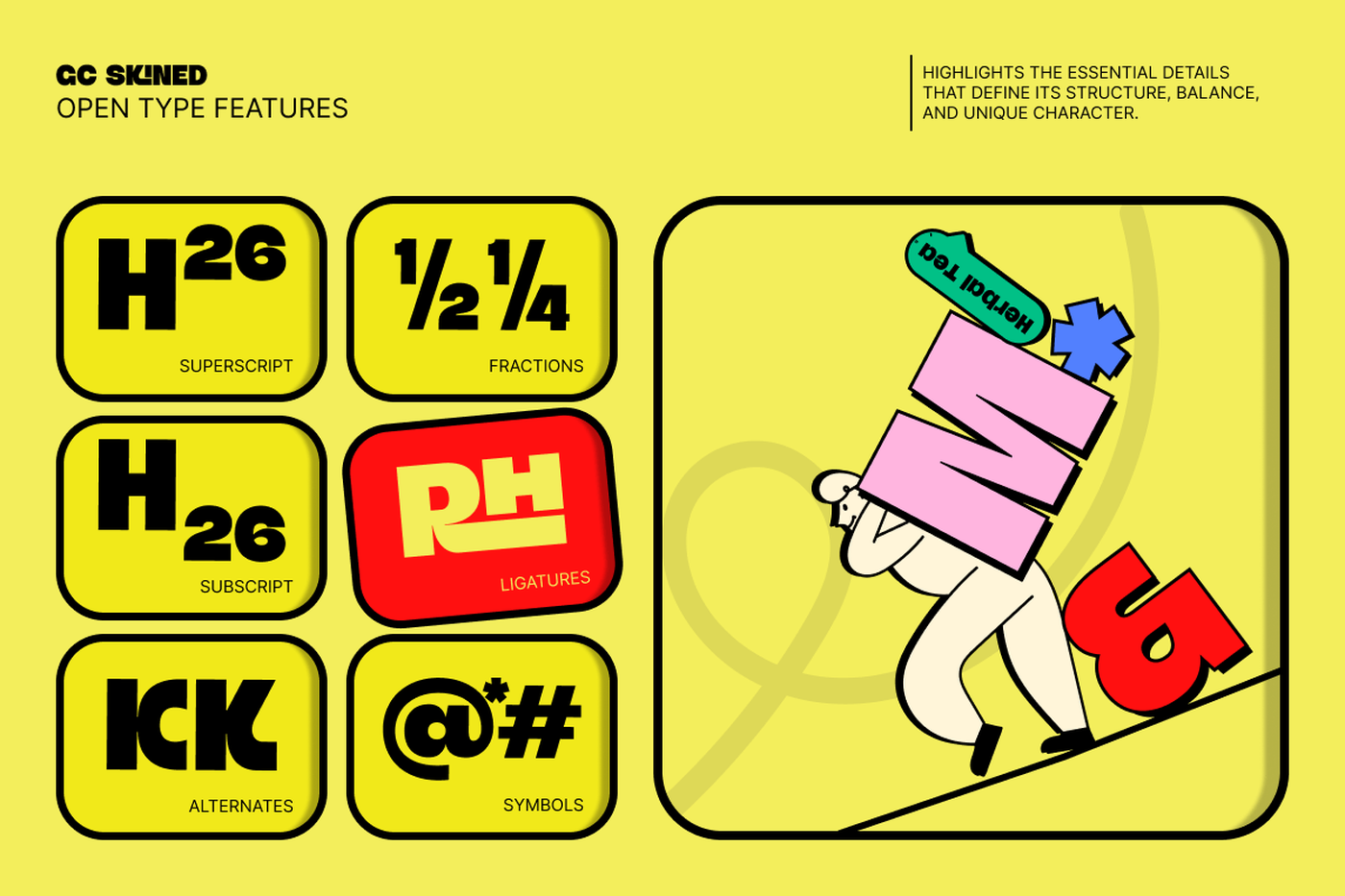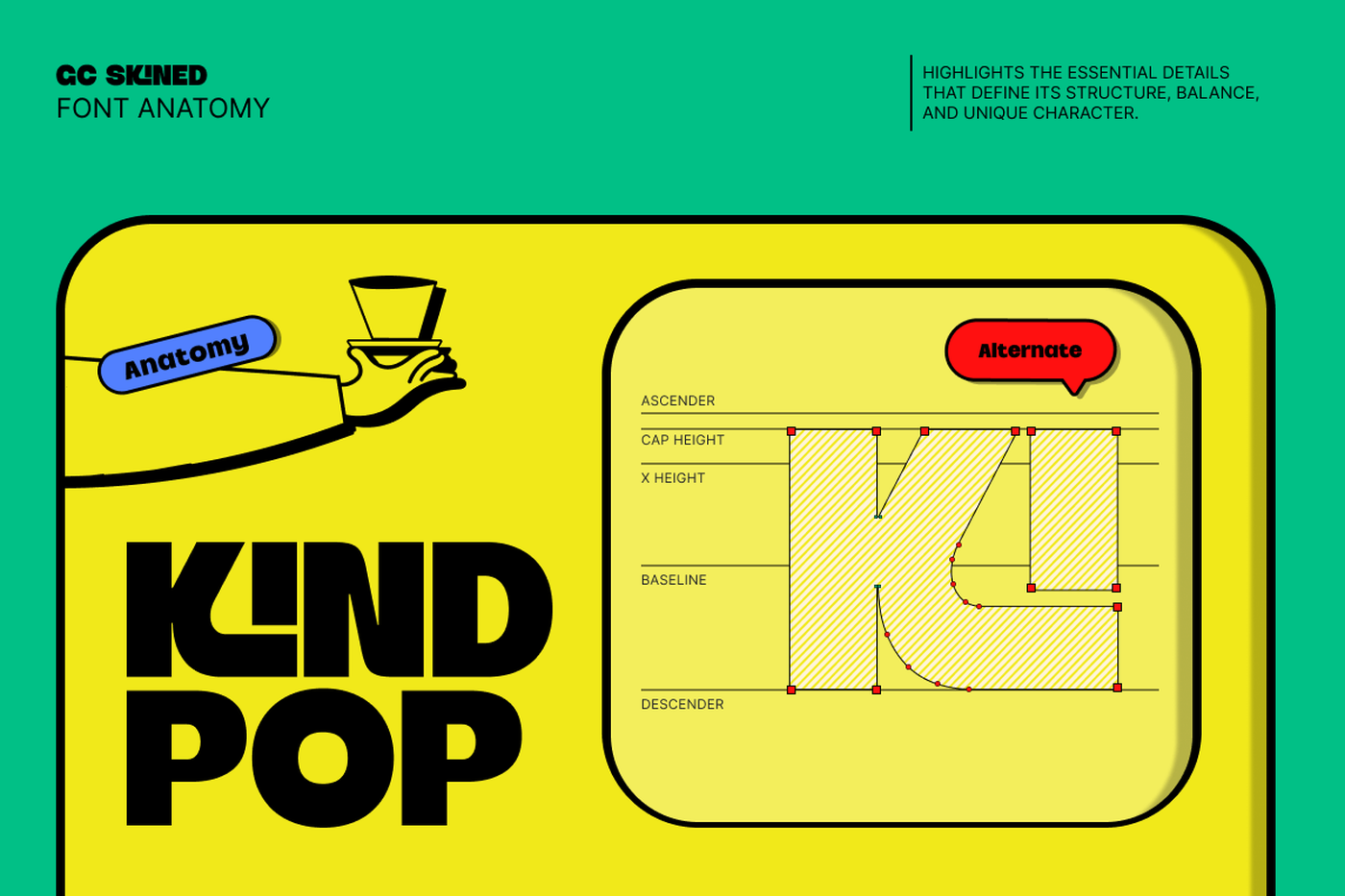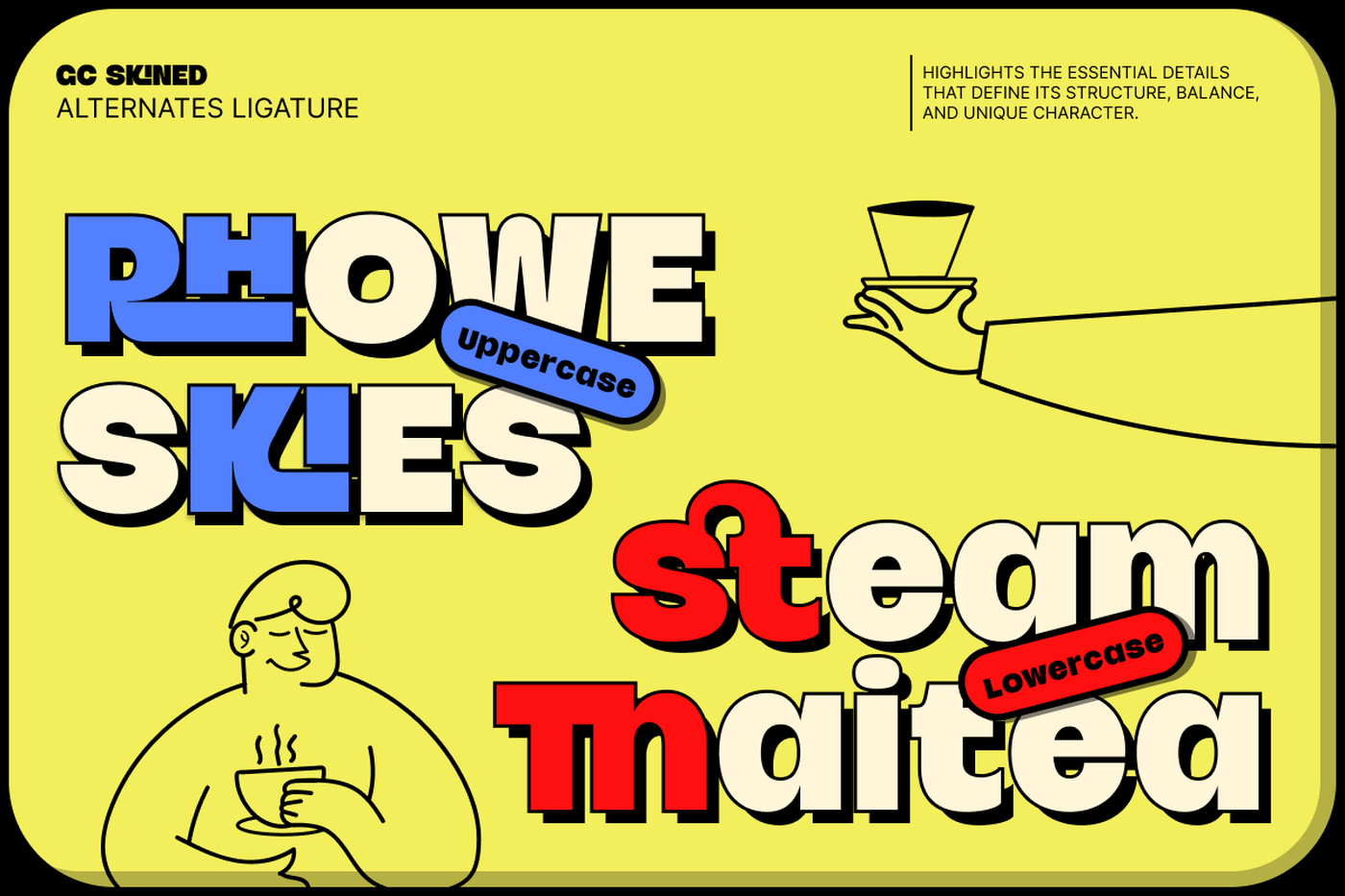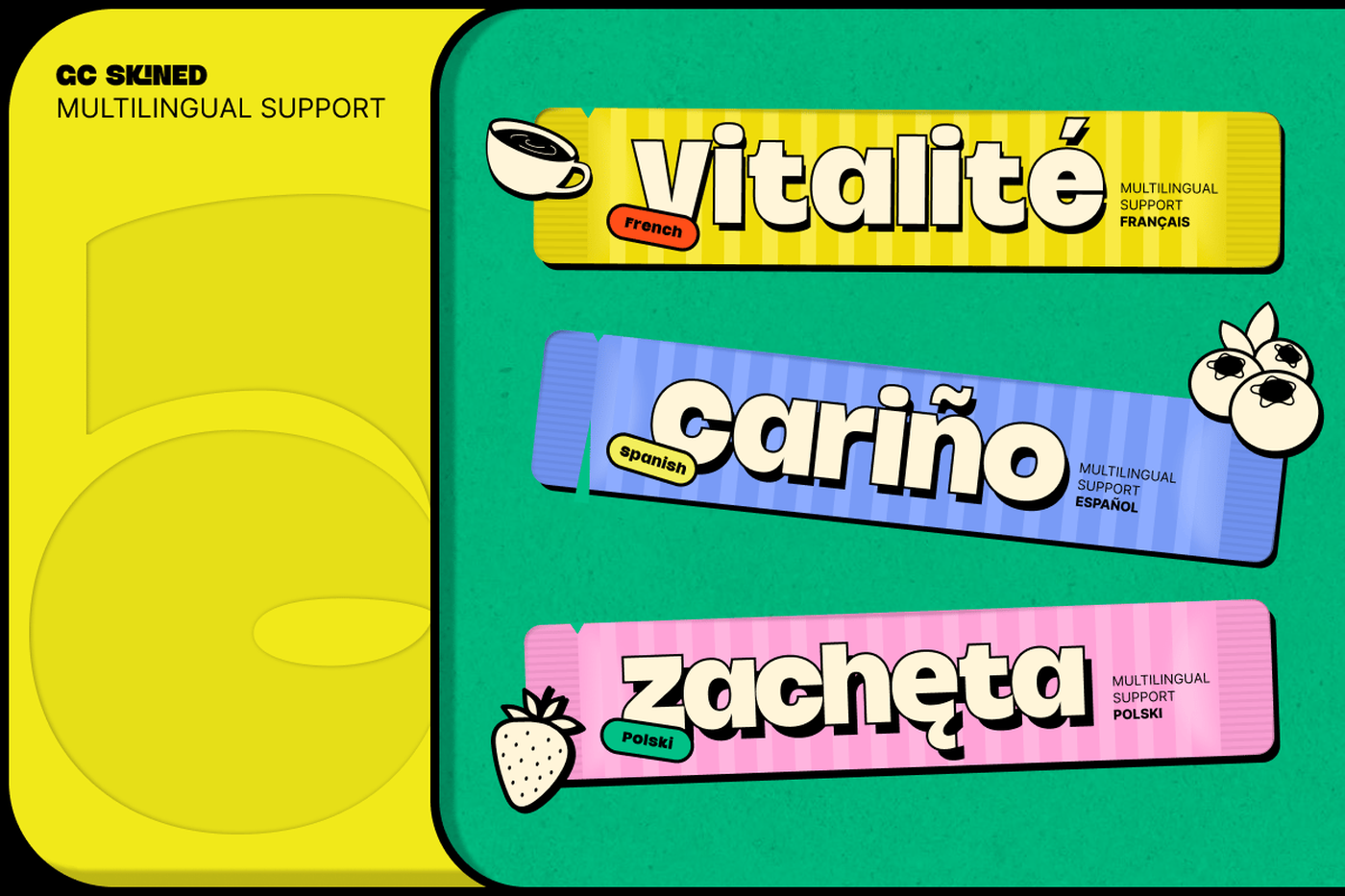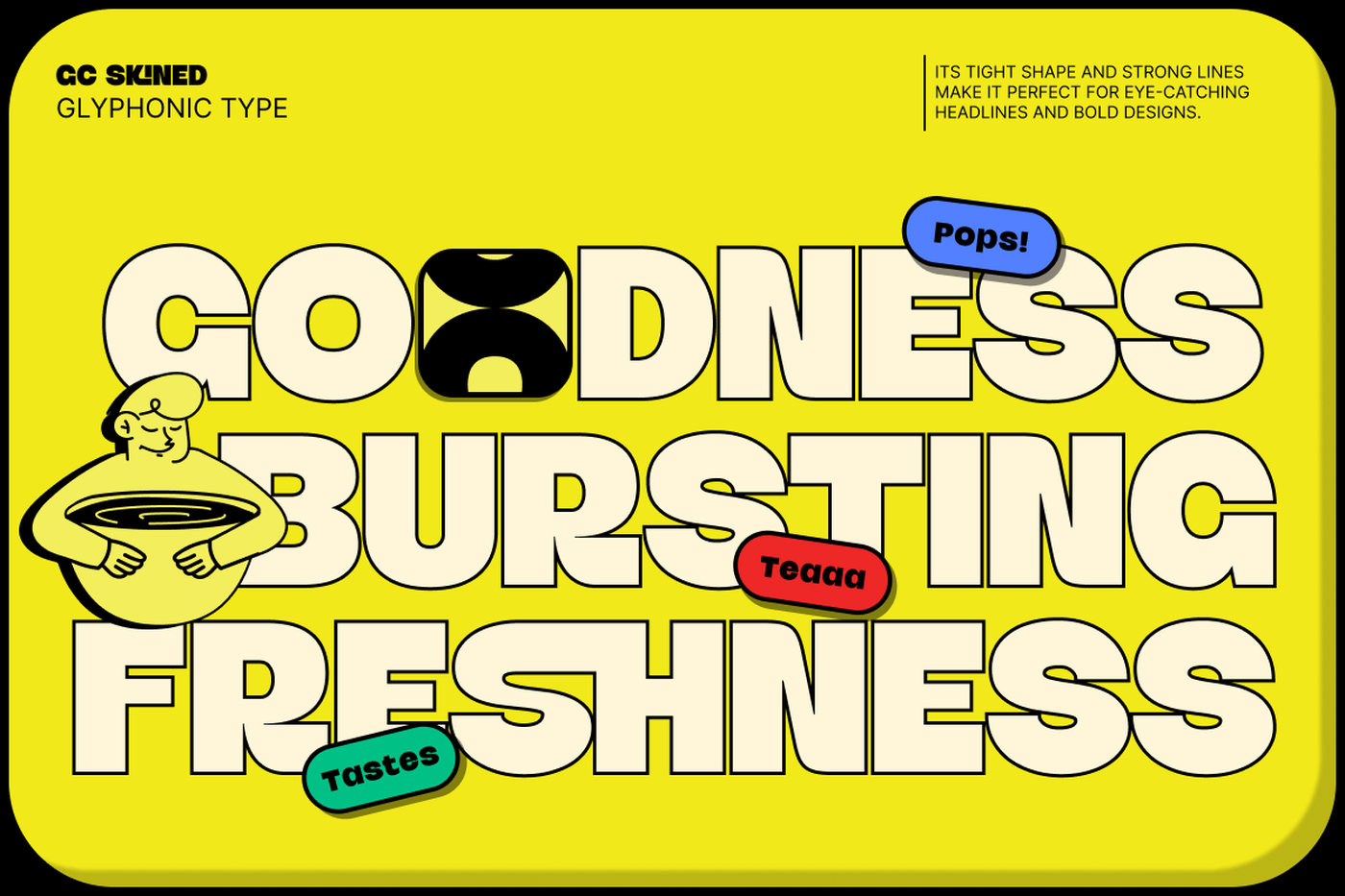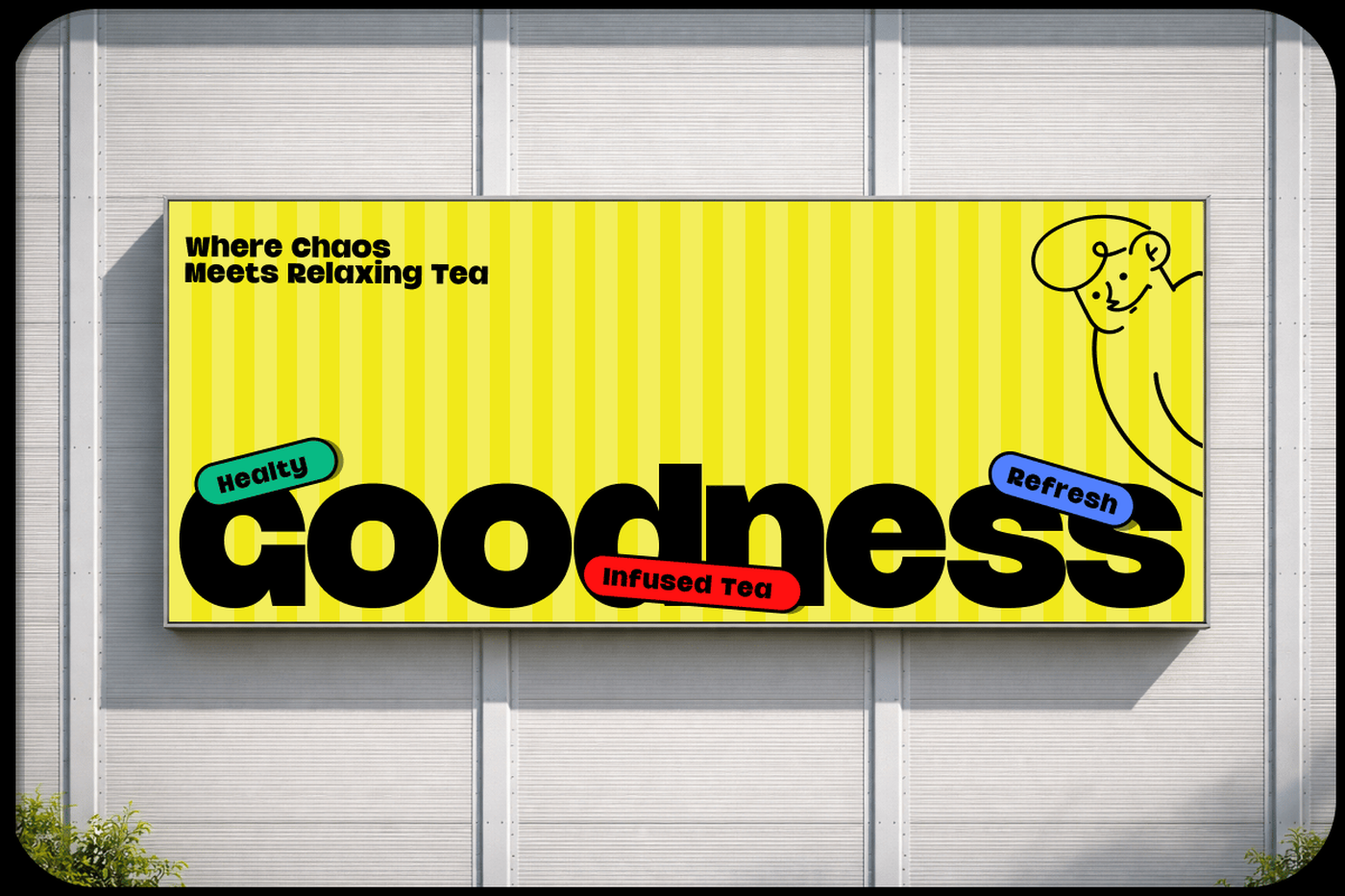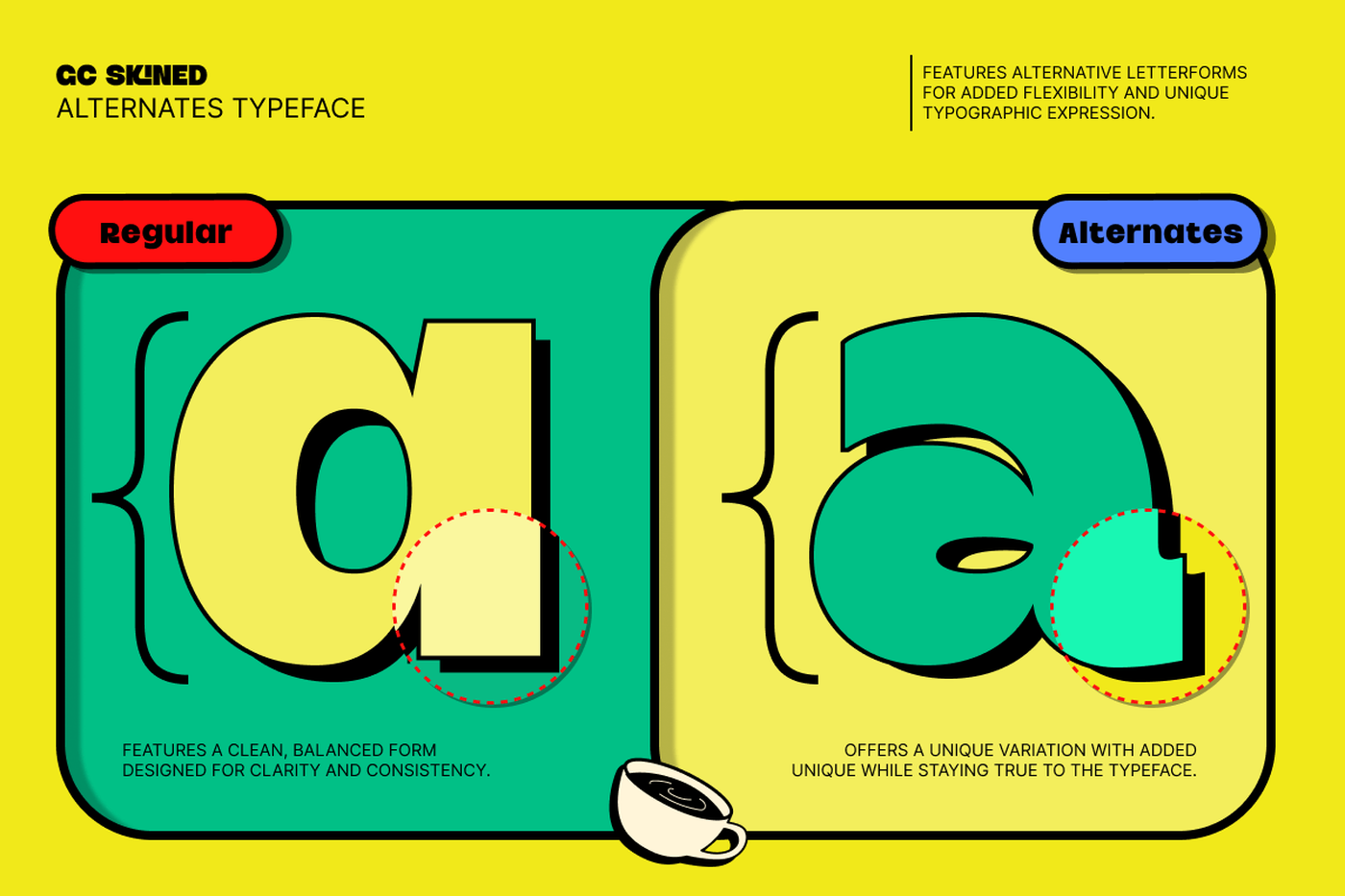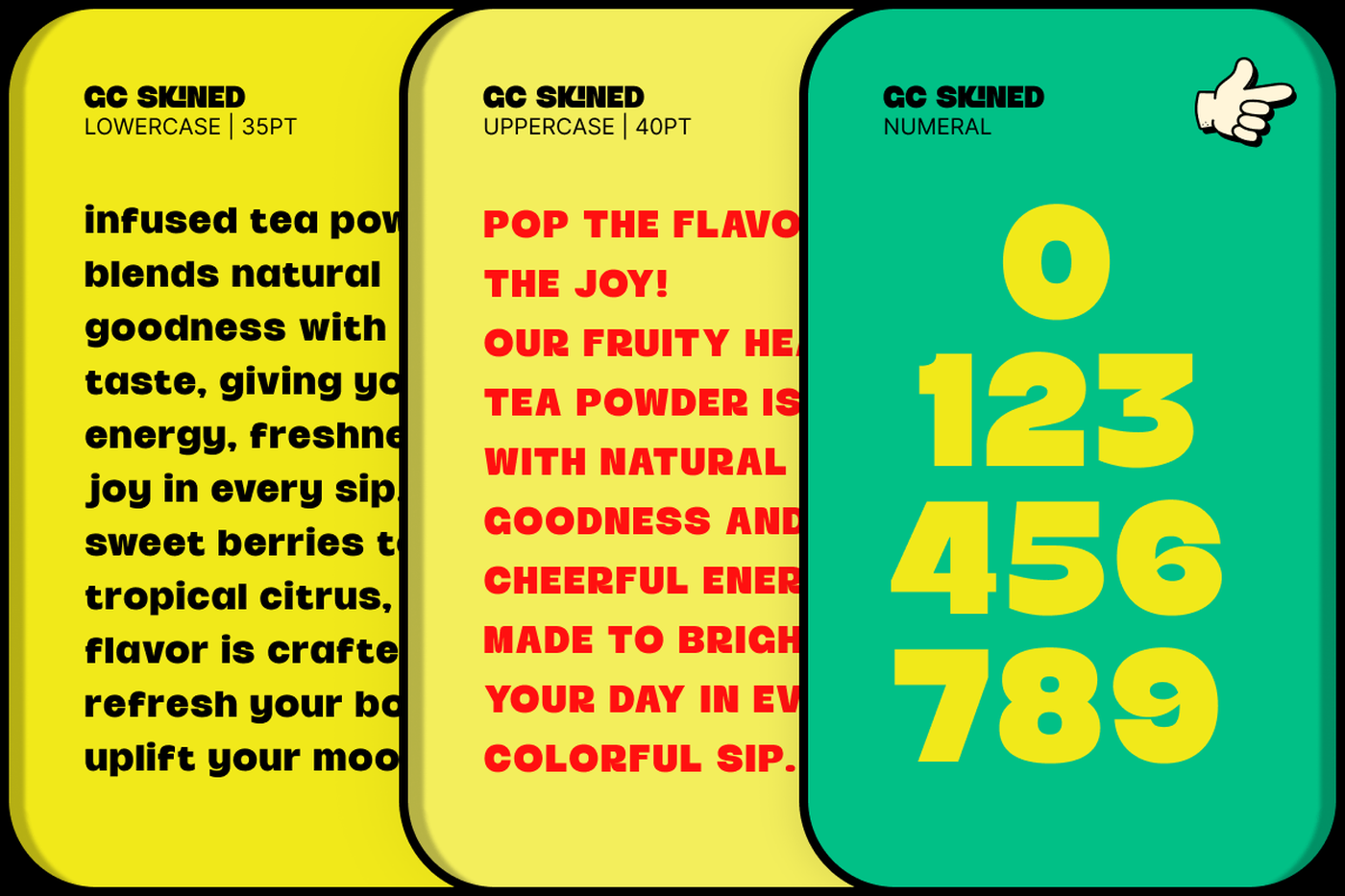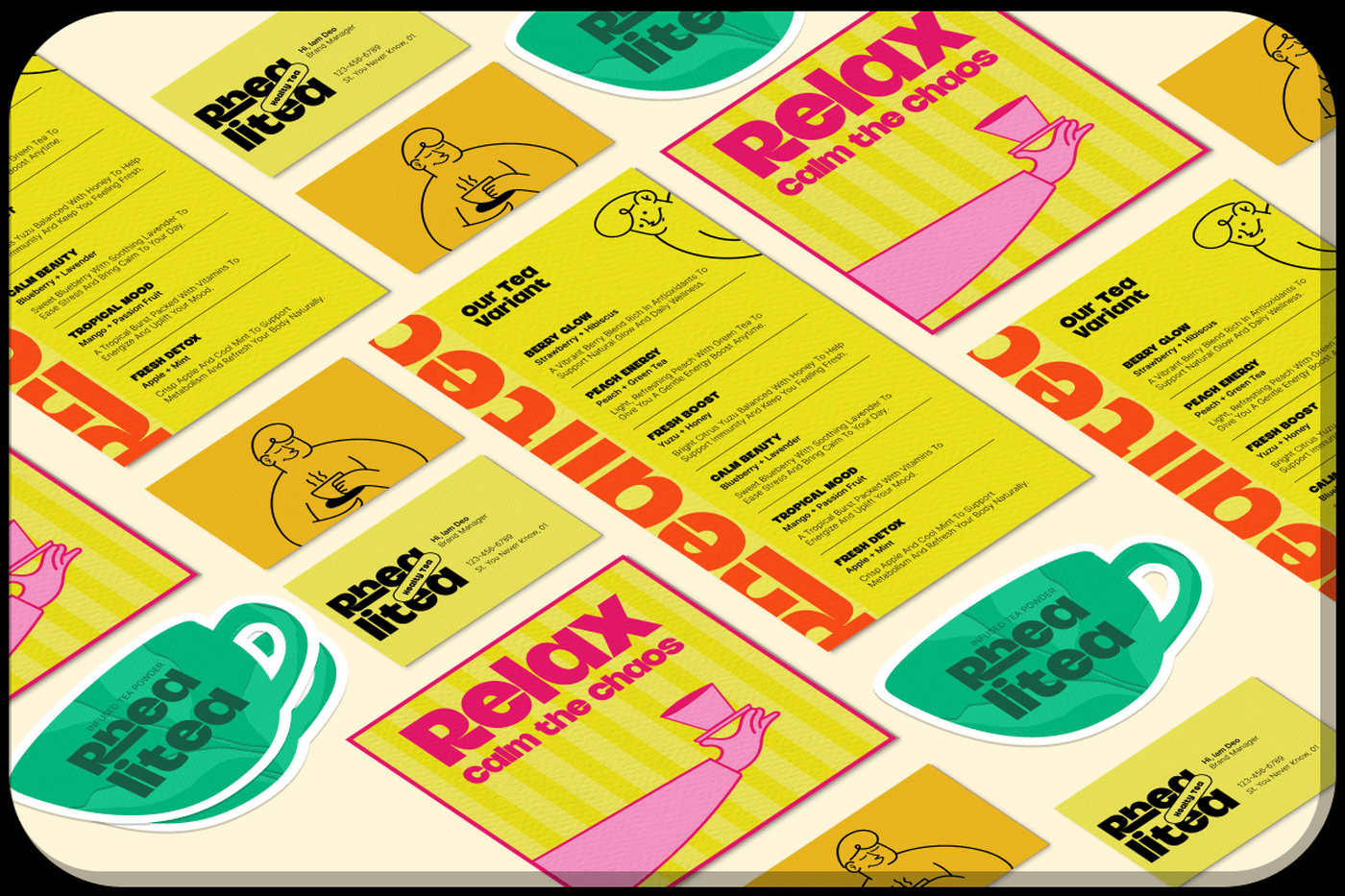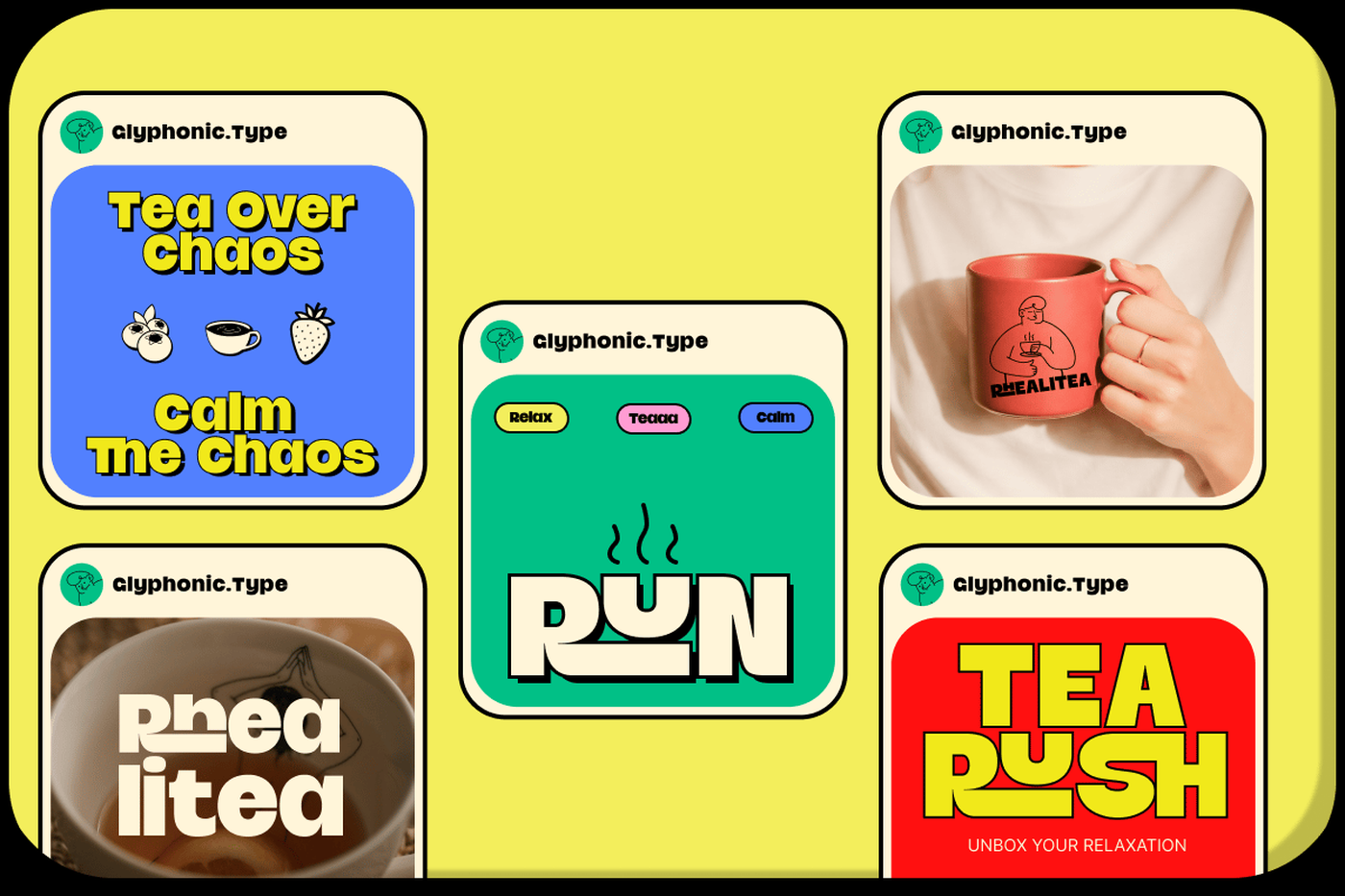
Skined - Bold Condensed Display Font
GC Skined is a striking display typeface built to deliver maximum impact with minimal space. Designed with a bold condensed structure and strong visual presence, it creates a powerful voice that instantly captures attention. With its solid strokes, tight spacing, and confident proportions, GC Skined is perfect for headlines, posters, branding, sports visuals, packaging, and high-impact editorial layouts. Its condensed form allows for efficient use of space while maintaining clarity and bold readability. Crafted to stand out across both digital and print media, GC Skined balances strength and simplicity—making it ideal for projects that demand energy, intensity, and a modern edge.
Designer: Glyphonic
Font: Skined